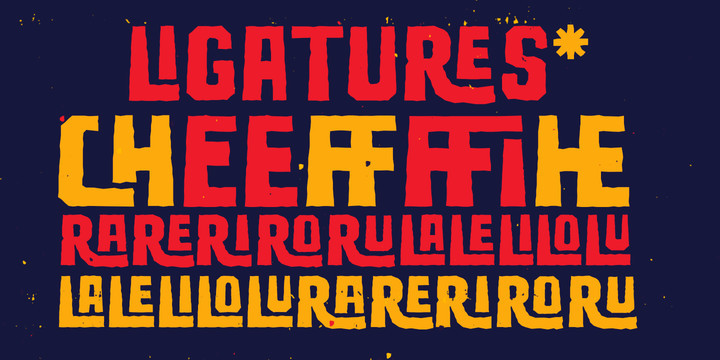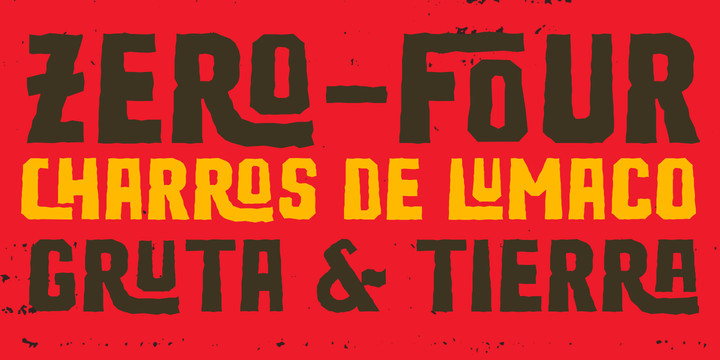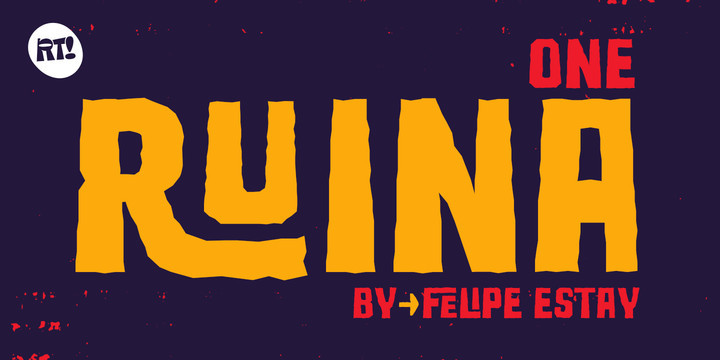
Ruina One Font
Ruina One is a Rough and distressed font, but at the same time very gestural. It is especially great for youth and child graphics, but can be applied in many other domains too.
Ruina One contains various ligatures.